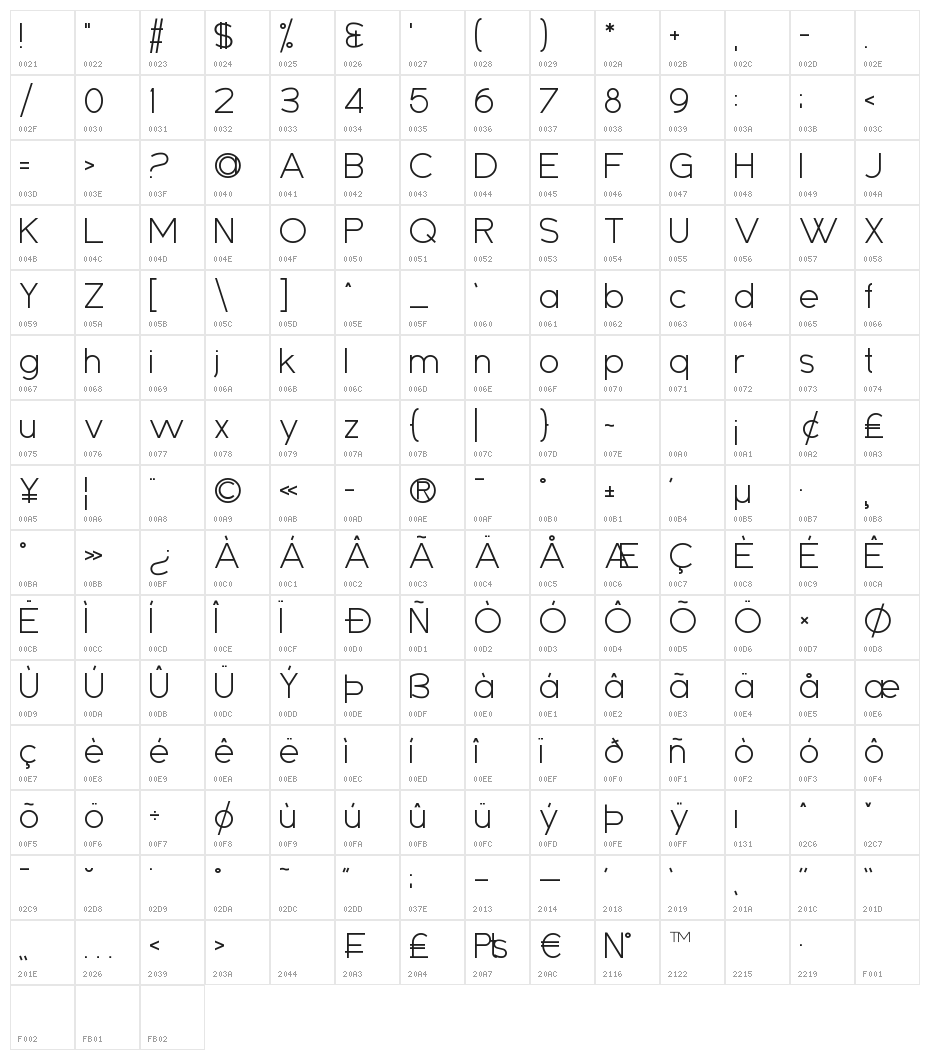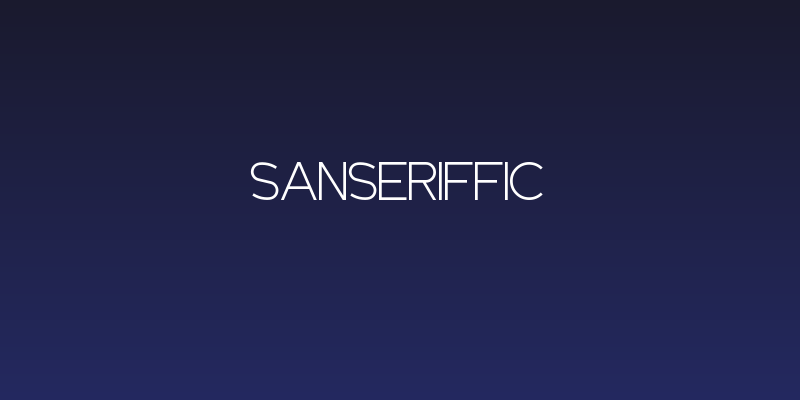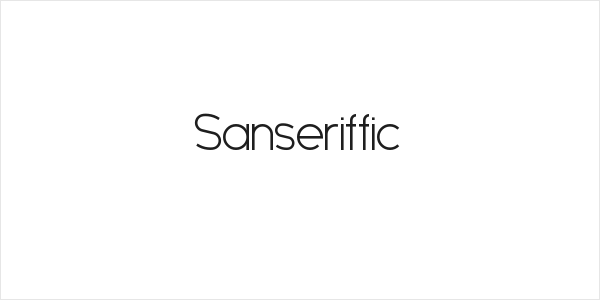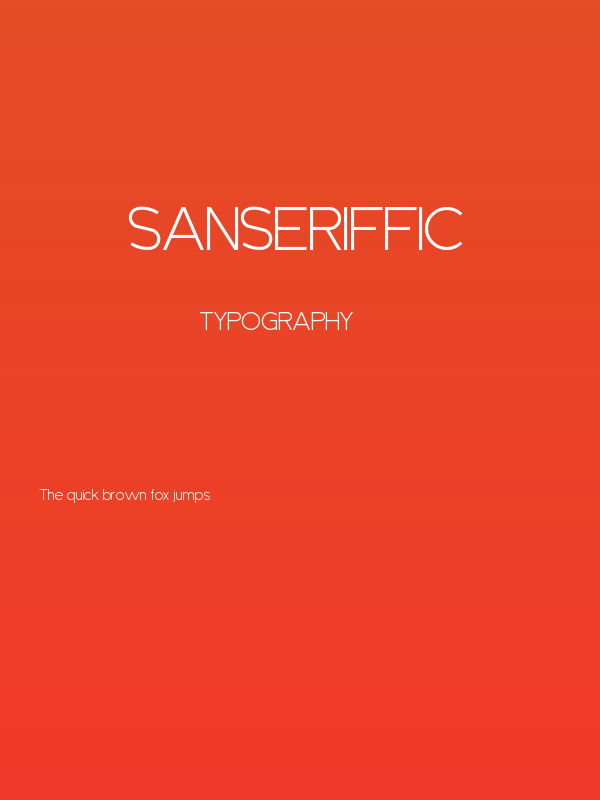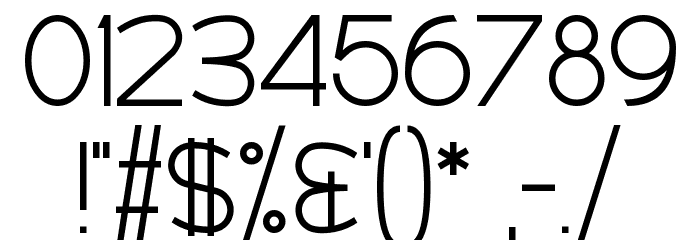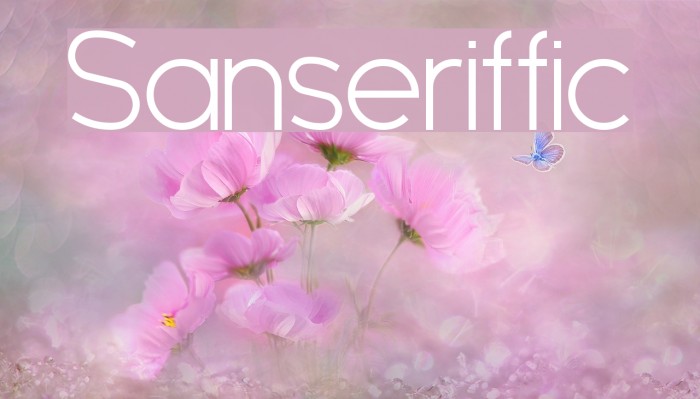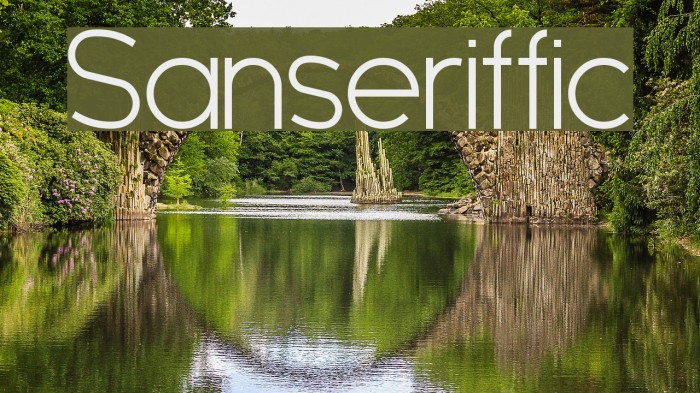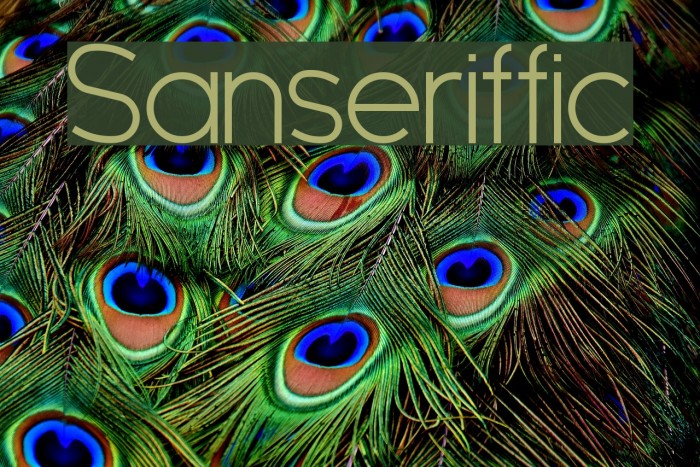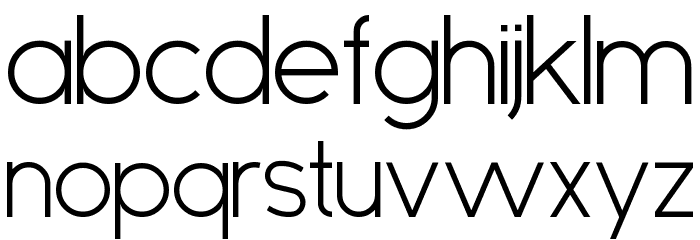
Sanseriffic Font
Sanseriffic Description
This font features a clean and modern sans-serif design, characterized by its geometric shapes and uniform stroke widths. The uppercase and lowercase letters maintain a consistent height, contributing to a harmonious and balanced appearance. The numerals are clear and easily distinguishable, making them suitable for various applications. Special characters are well-integrated, maintaining the overall aesthetic. The font's simplicity and clarity make it versatile for both digital and print media, ensuring readability across different sizes and contexts.